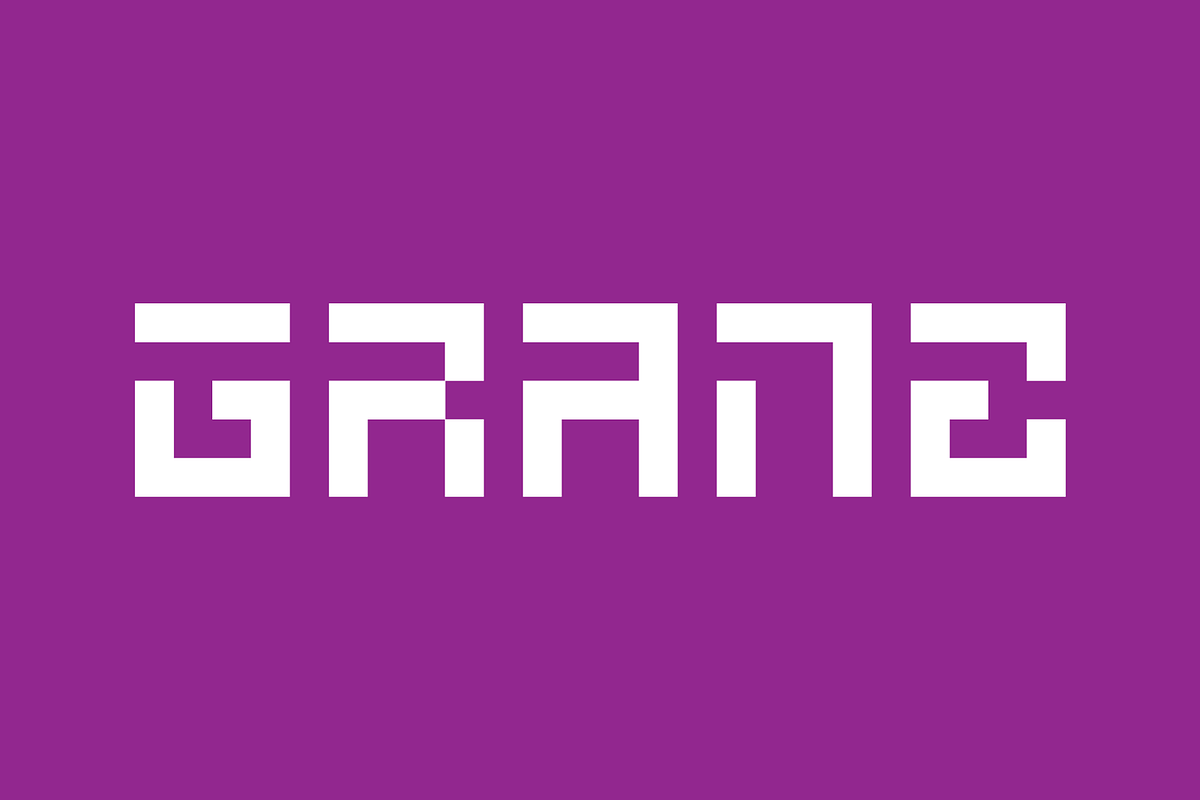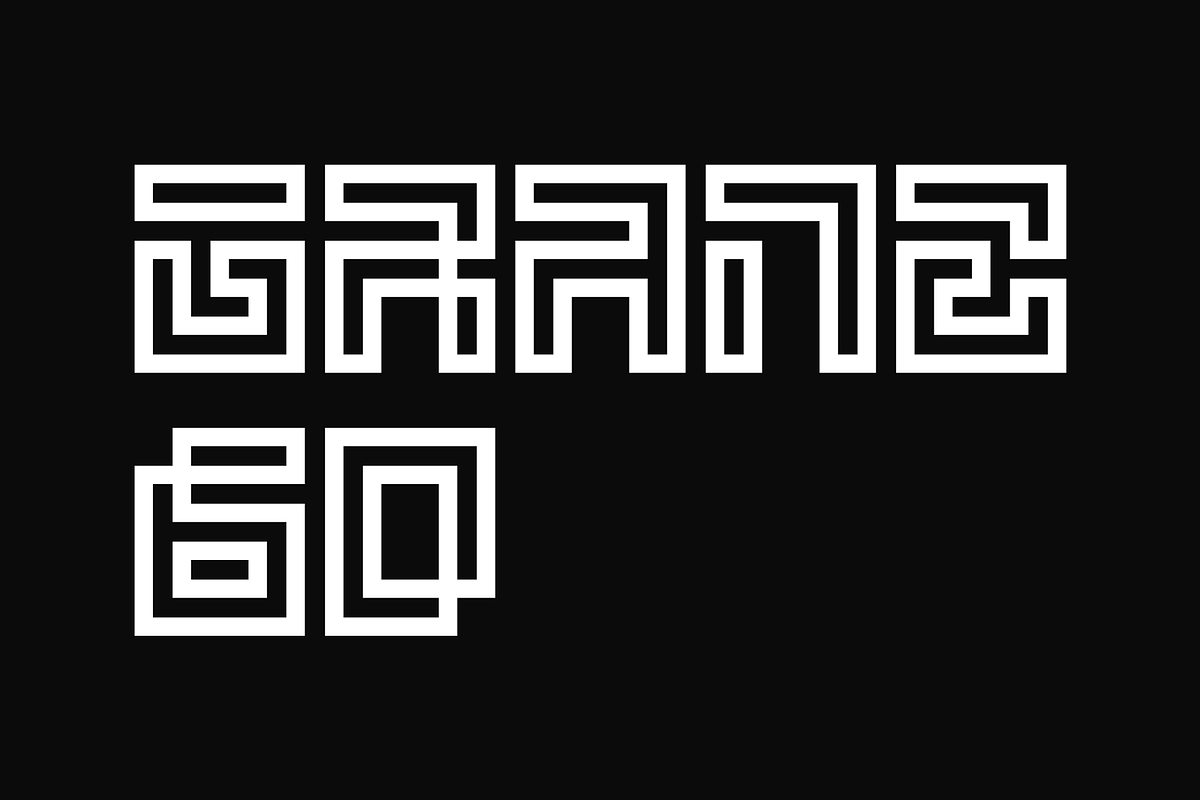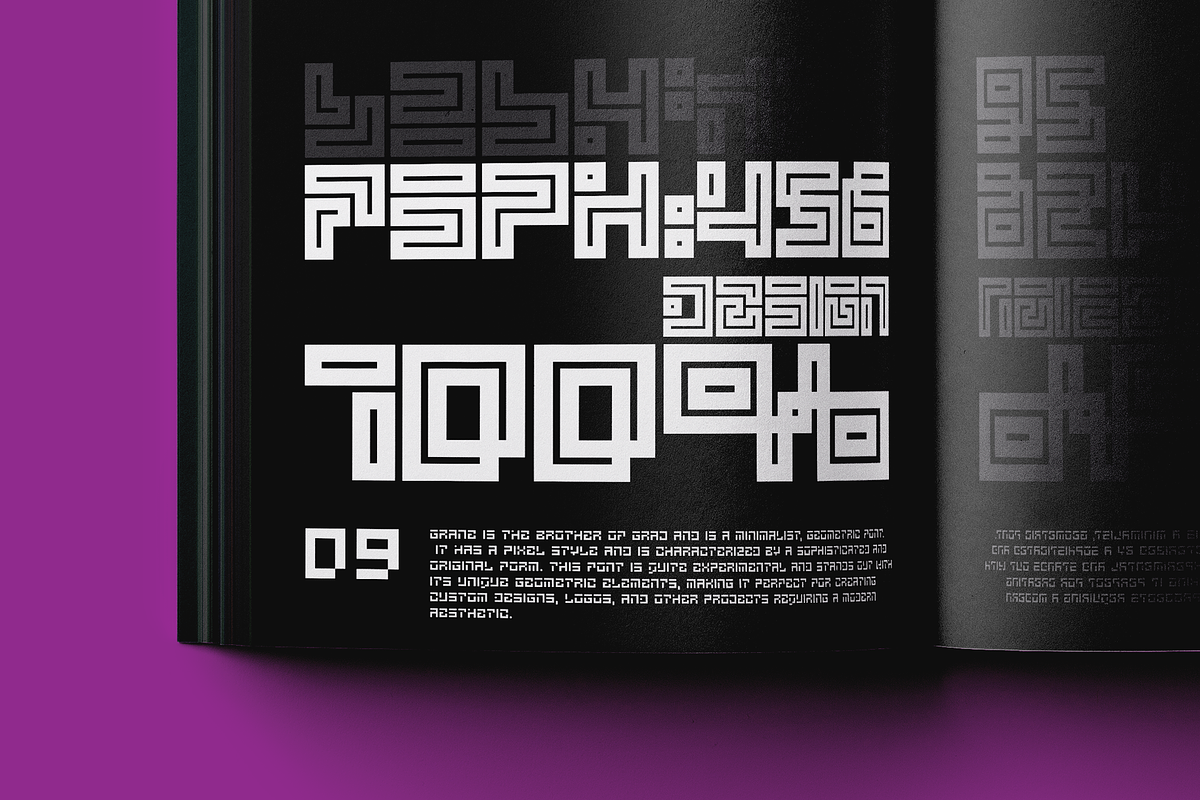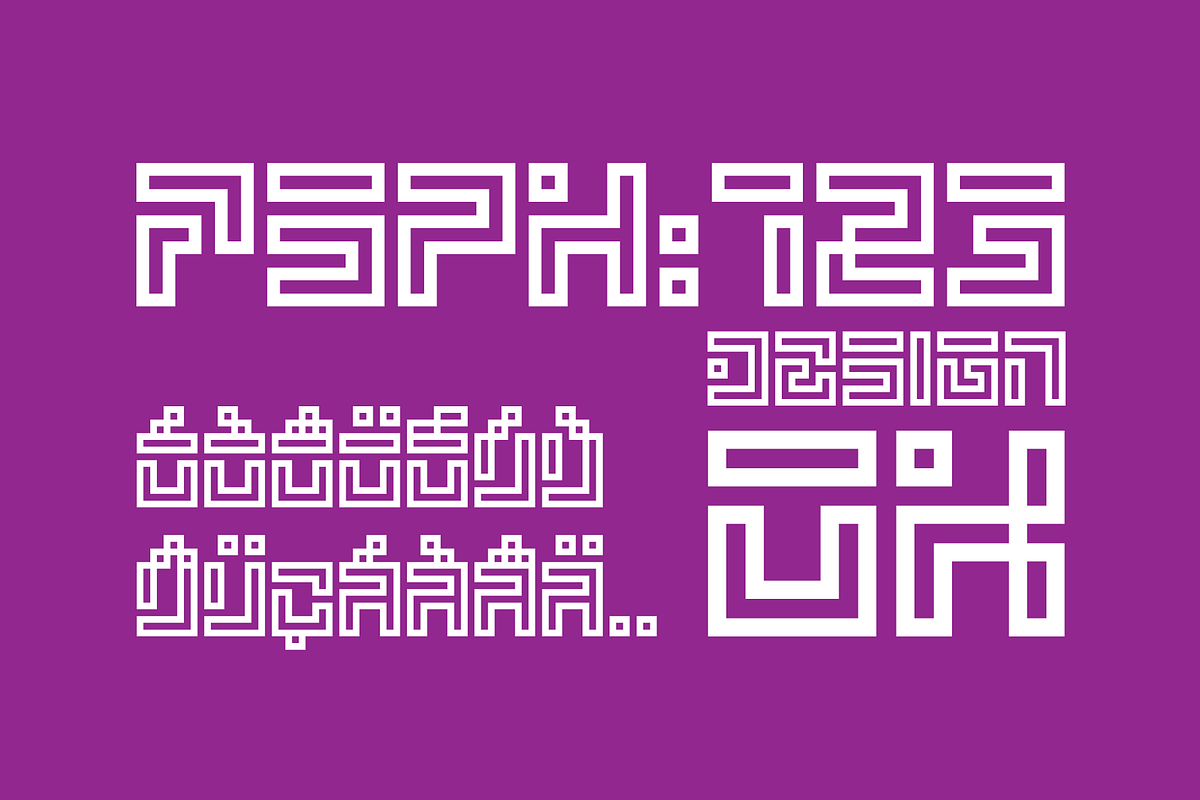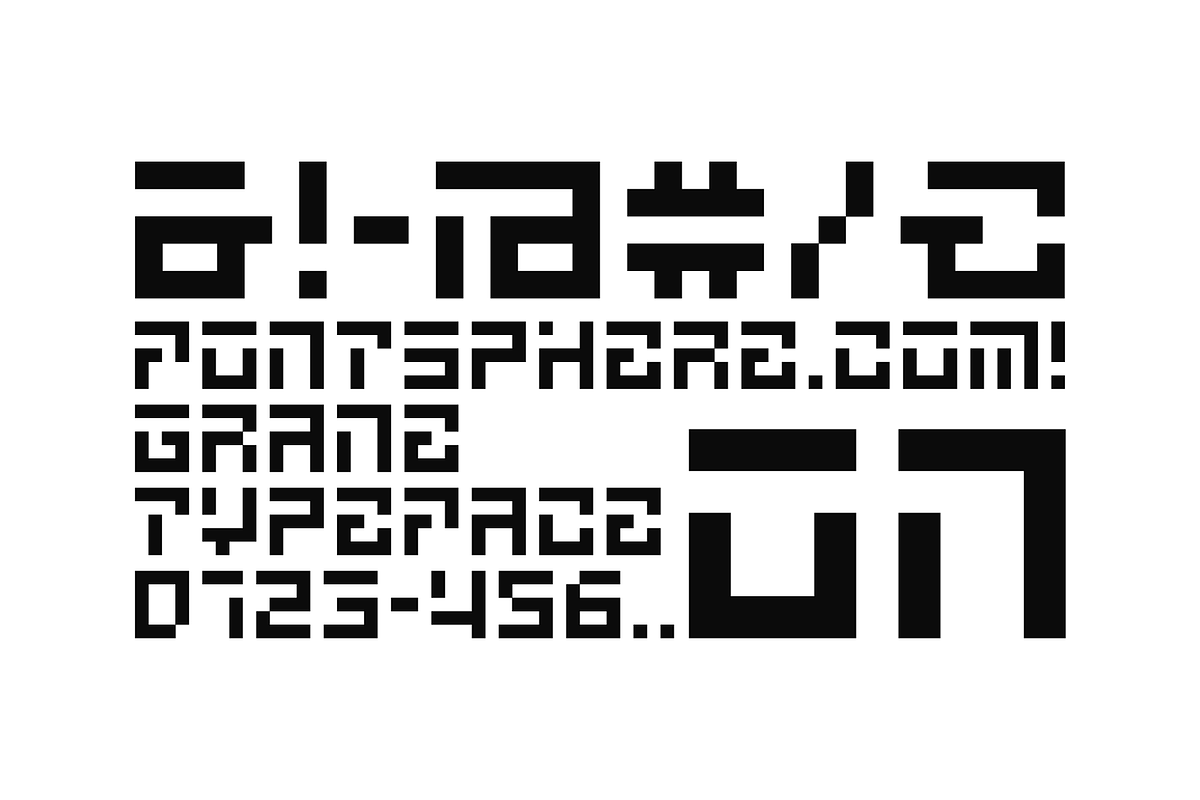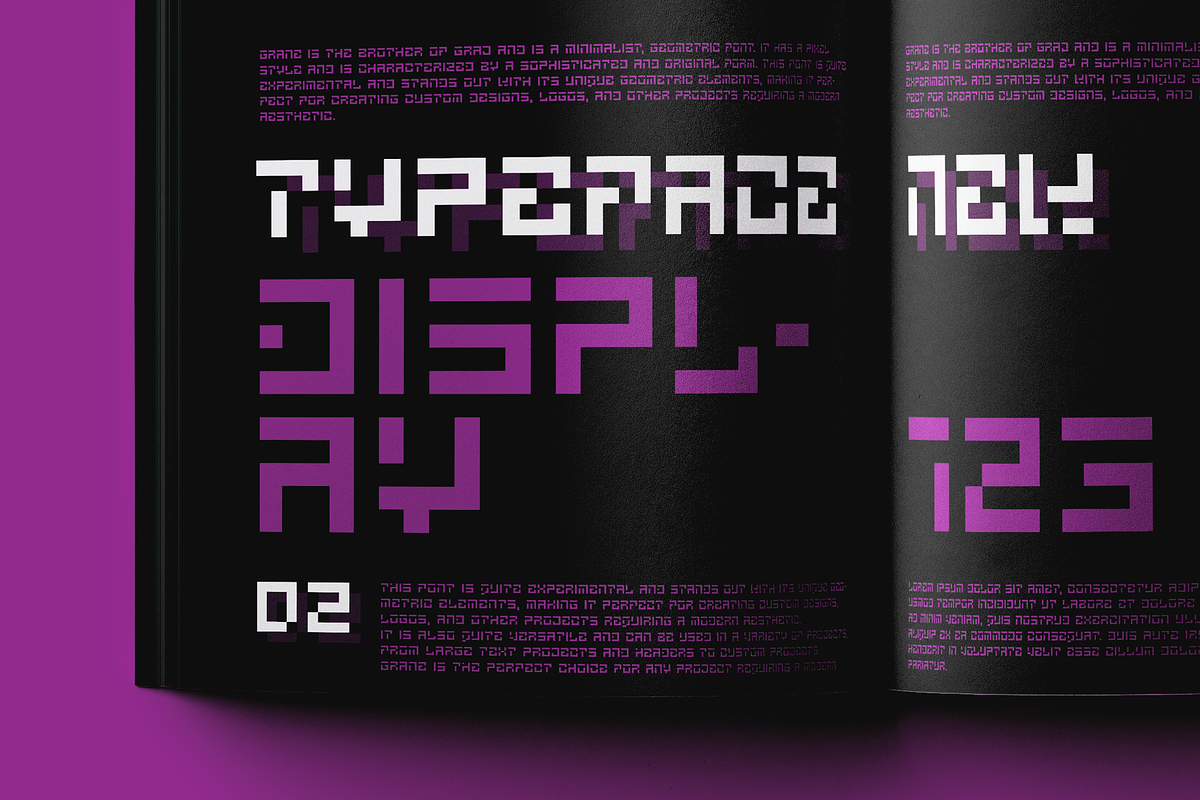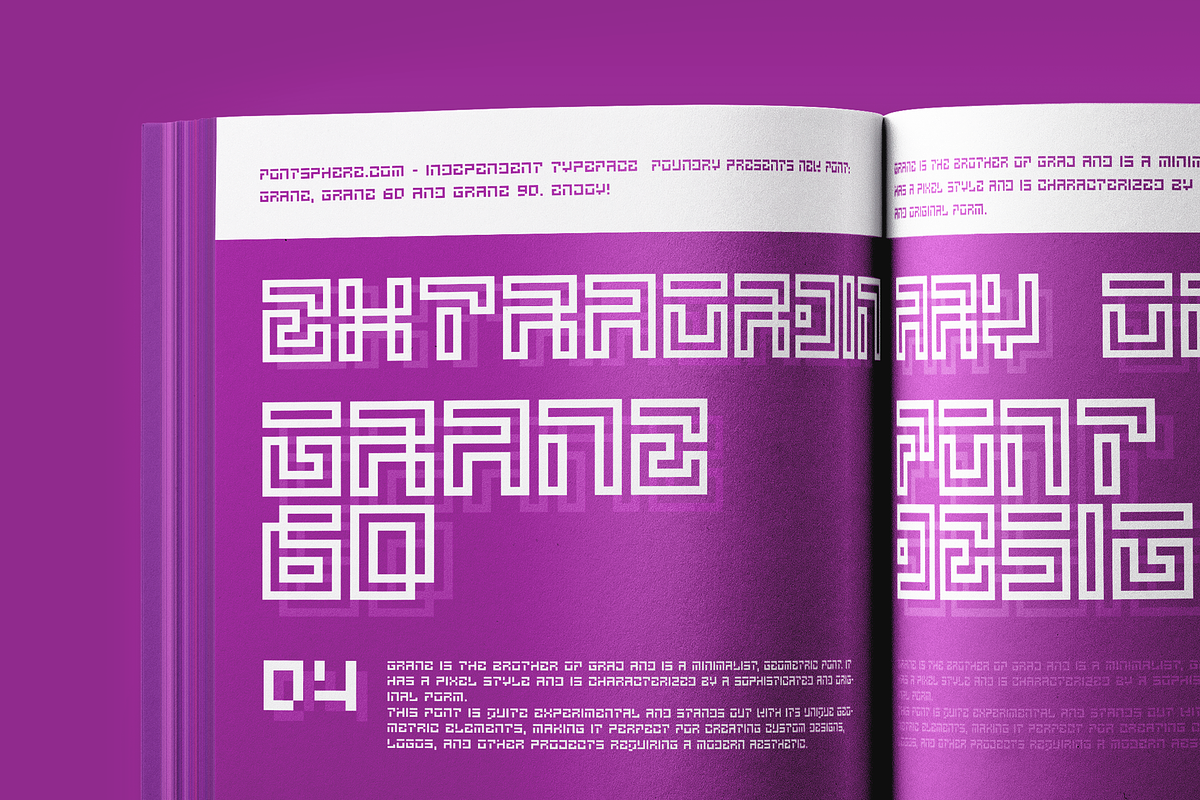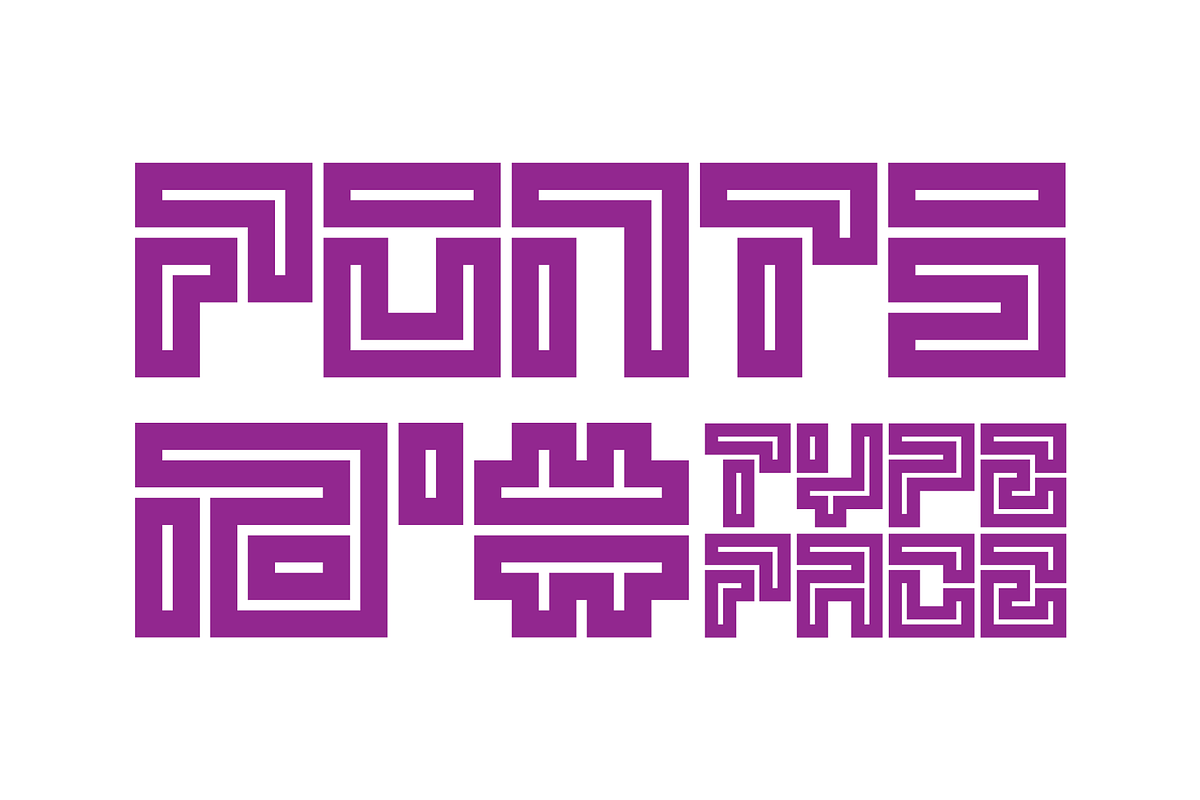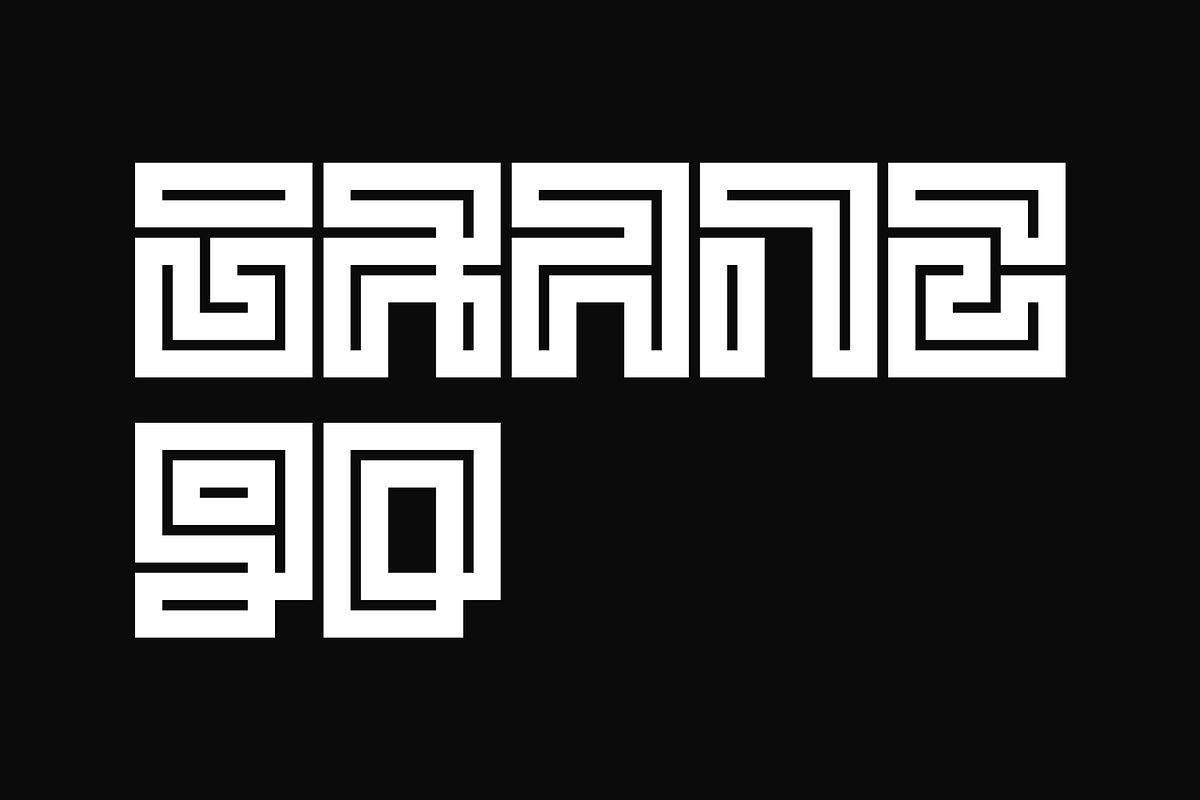
GRANE Font Family / 3 Styles
GRANE is the brother of GRAJ and is a minimalist, geometric font. It has a pixel style and is characterized by a sophisticated and original form. This font is quite experimental and stands out with its unique geometric elements, making it perfect for creating custom designs, logos, and other projects requiring a modern aesthetic.
It is also quite versatile and can be used in a variety of projects, from large text projects and headers to custom projects. GRANE is the perfect choice for any project requiring a modern and experimental font.